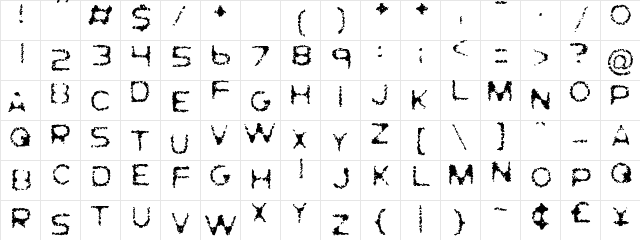
Ghostly Prints Regular
Design Context for Ghostly Prints Typeface
Ghostly Prints is a composed and adaptable typeface that performs quietly and consistently across a wide range of design contexts.